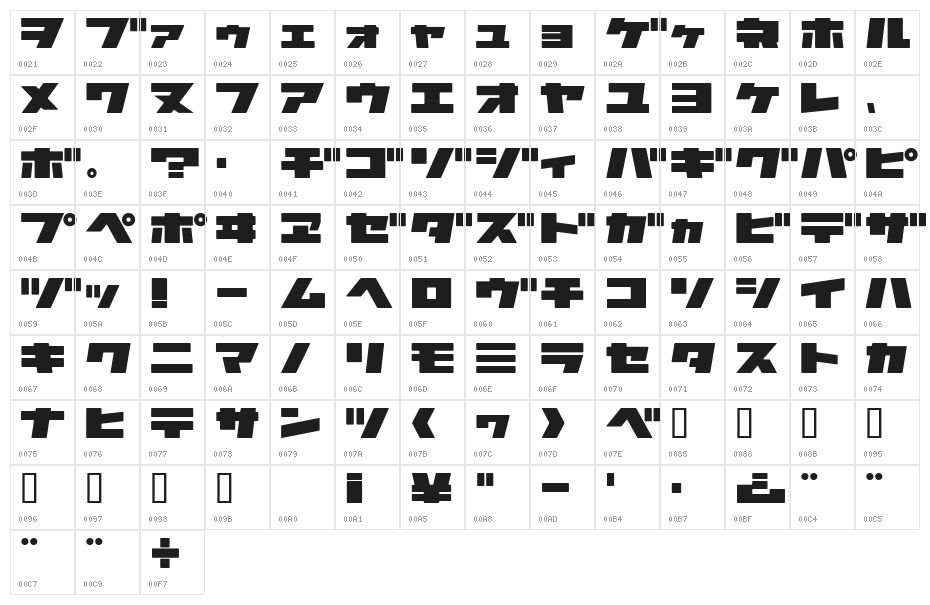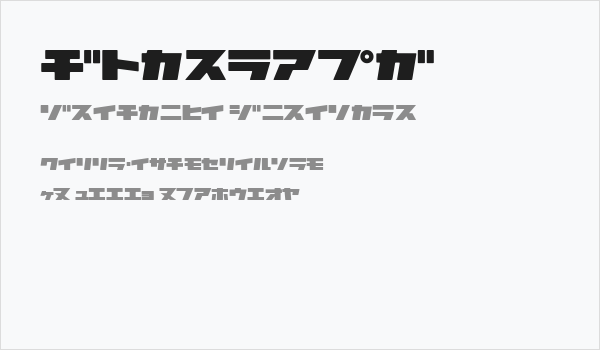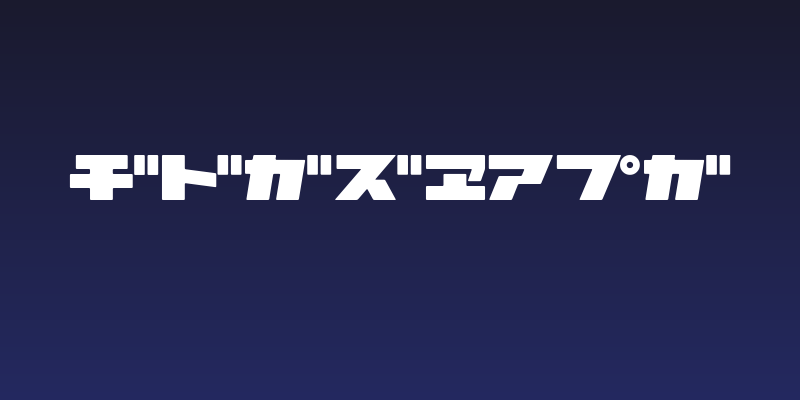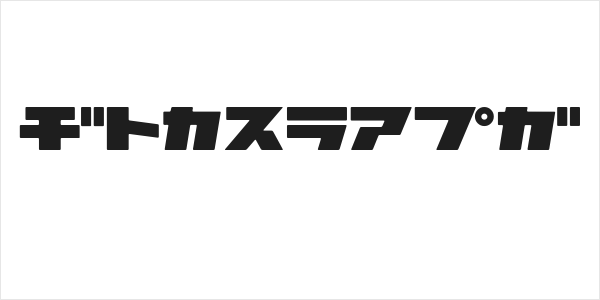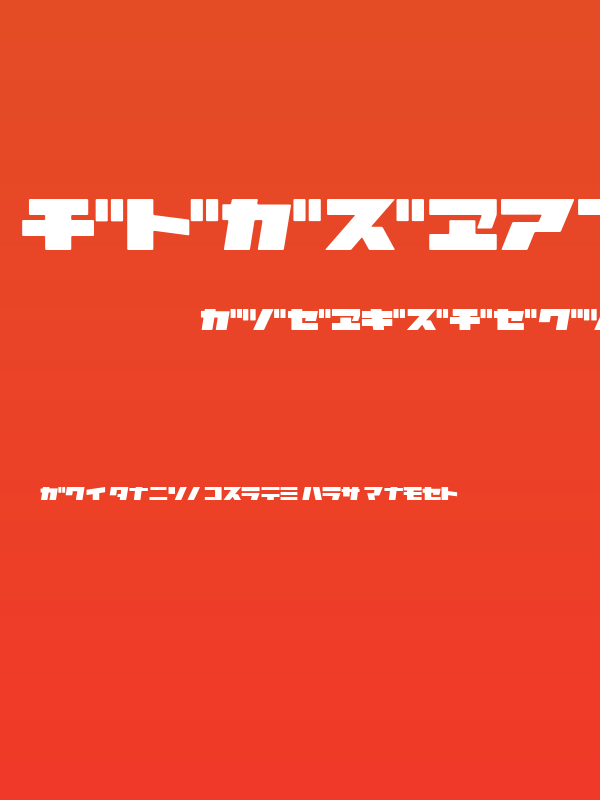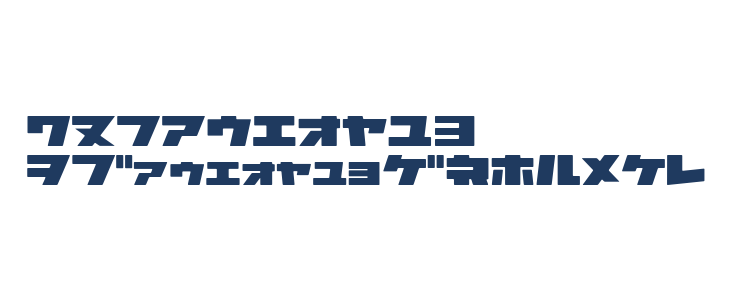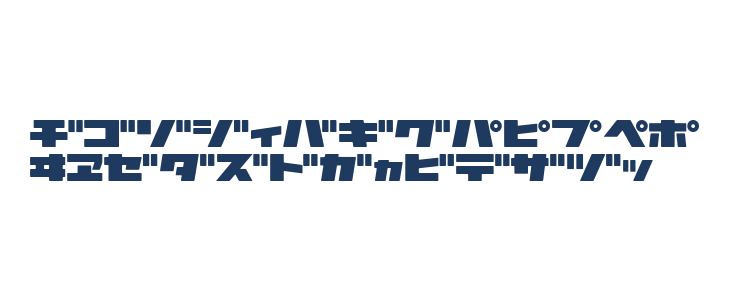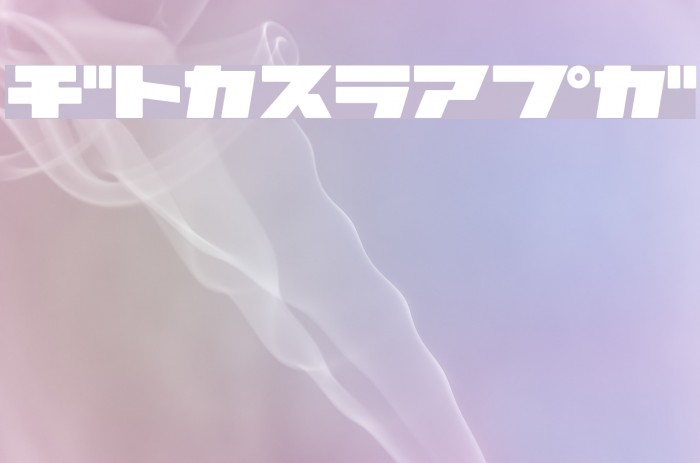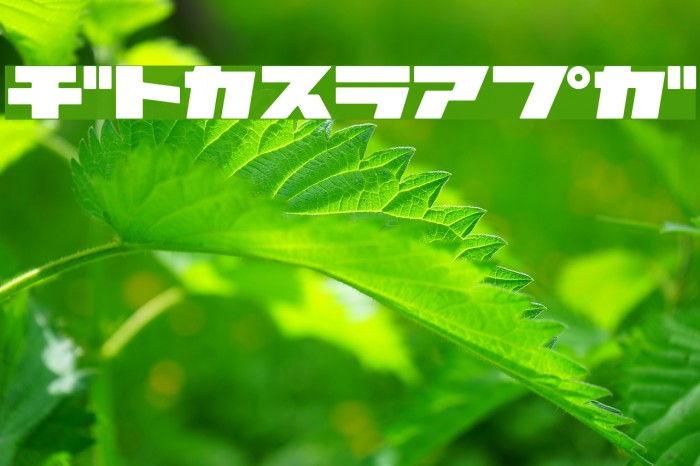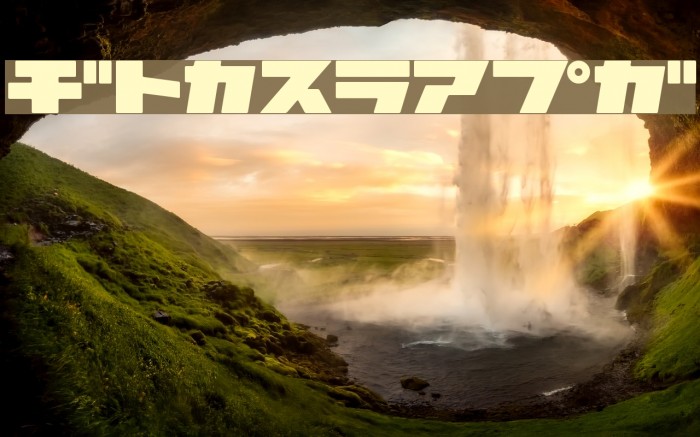
Astro3KT Font
Astro3KT Description
This font features bold, geometric shapes with a distinctly modern and futuristic aesthetic. The characters are wide and blocky, with sharp angles and clean lines that convey a sense of strength and stability. The uniformity in stroke width across all characters gives it a cohesive and solid appearance. The design is reminiscent of digital or sci-fi themes, making it ideal for projects that require a contemporary and tech-savvy look. The font's boldness ensures high visibility and impact, making it suitable for attention-grabbing headlines or titles.
| Proposed Projects | Ideal for sci-fi themed posters, tech company logos, video game titles, and digital media projects. |